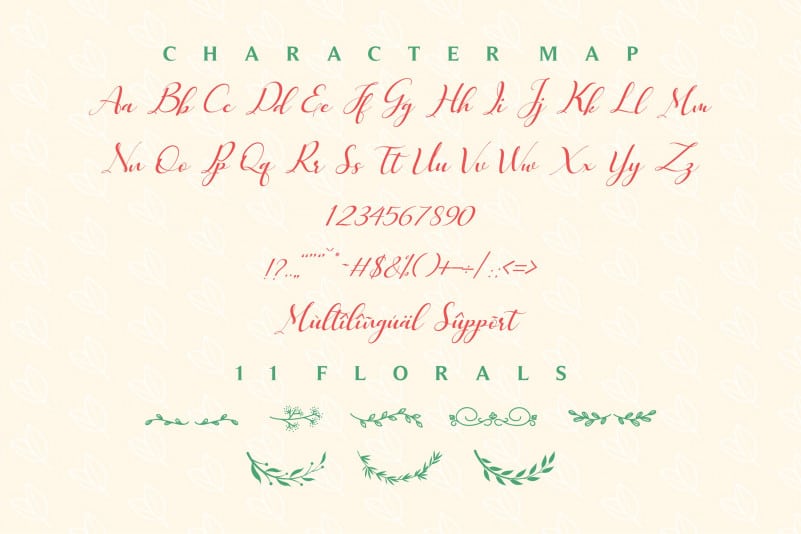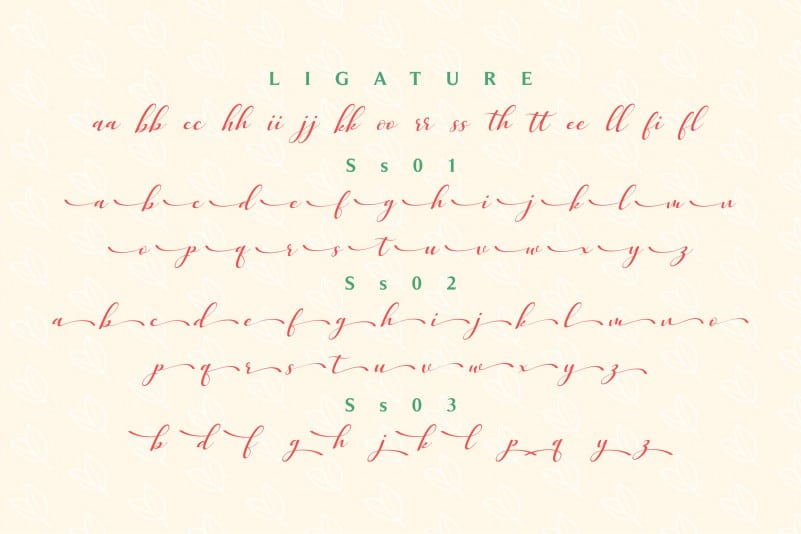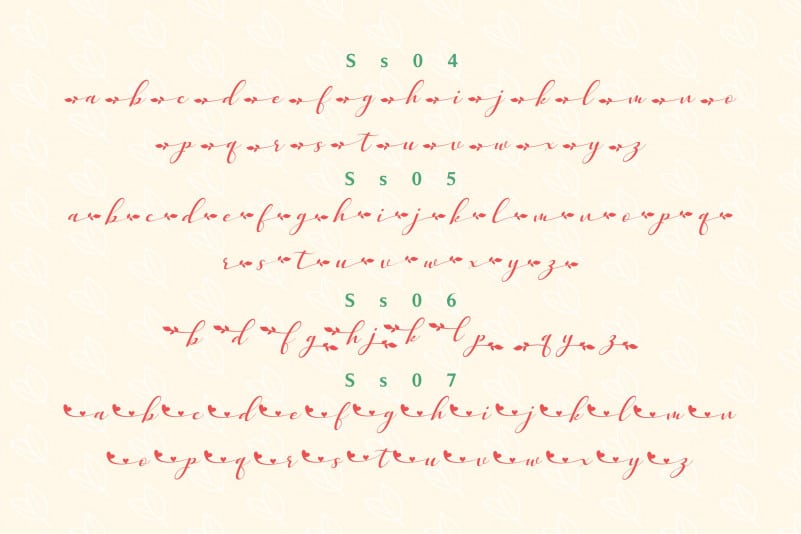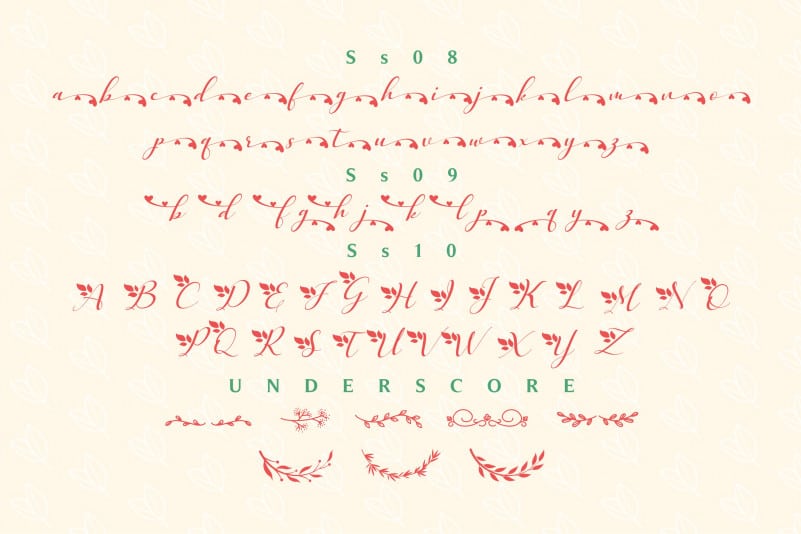
Emely love nature Calligraphy Font is a stylish, romantic and flowing handwritten font. This font is PUA encoded which means you can access all of the glyphs and swashes with ease! Not too thin and not too thick, balanced and varied, Emely Love Nature was designed to enhance the beauty of your projects.